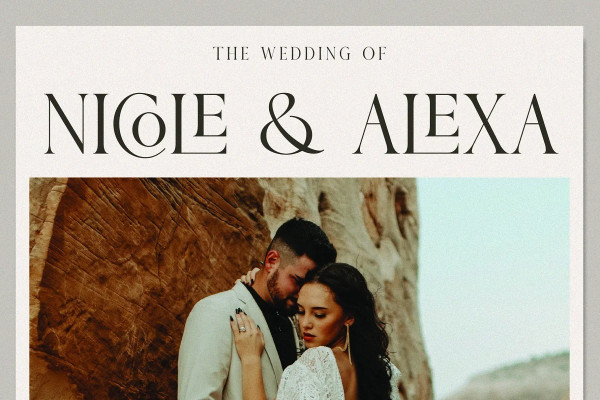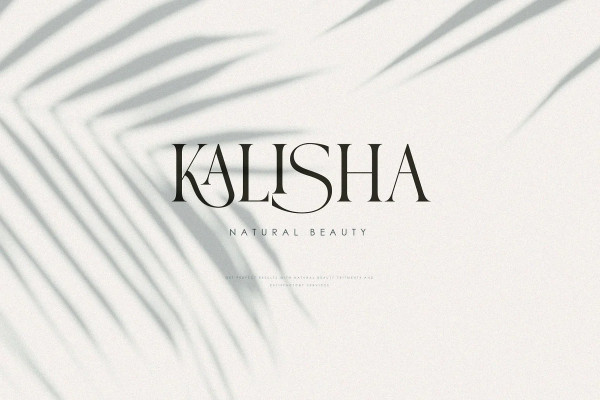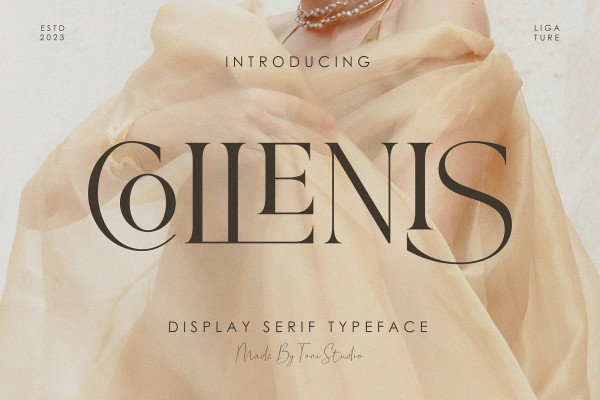
Collenis Font
Collenis Font– a modern serif look using classy & elegant capital letters with beautiful, luxurious contrasts. This font is specially designed for fashion-themed projects, perfect for creating elegant and exotic lifestyle designs, such as signatures, stationery, logos, weddings, typography quotes, magazine or book covers, website headers, apparel, branding, packaging designs, and much more. In addition, fashion-related branding or editorial design conveys both masculine and feminine qualities.